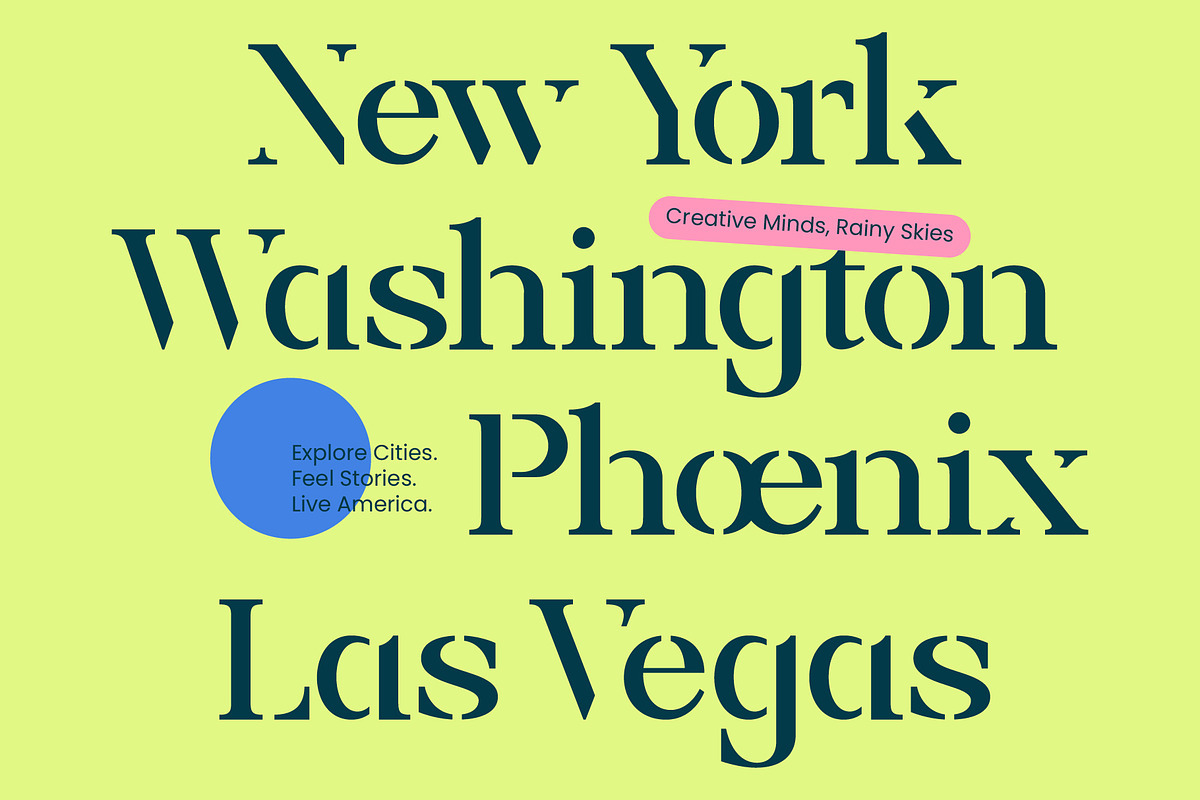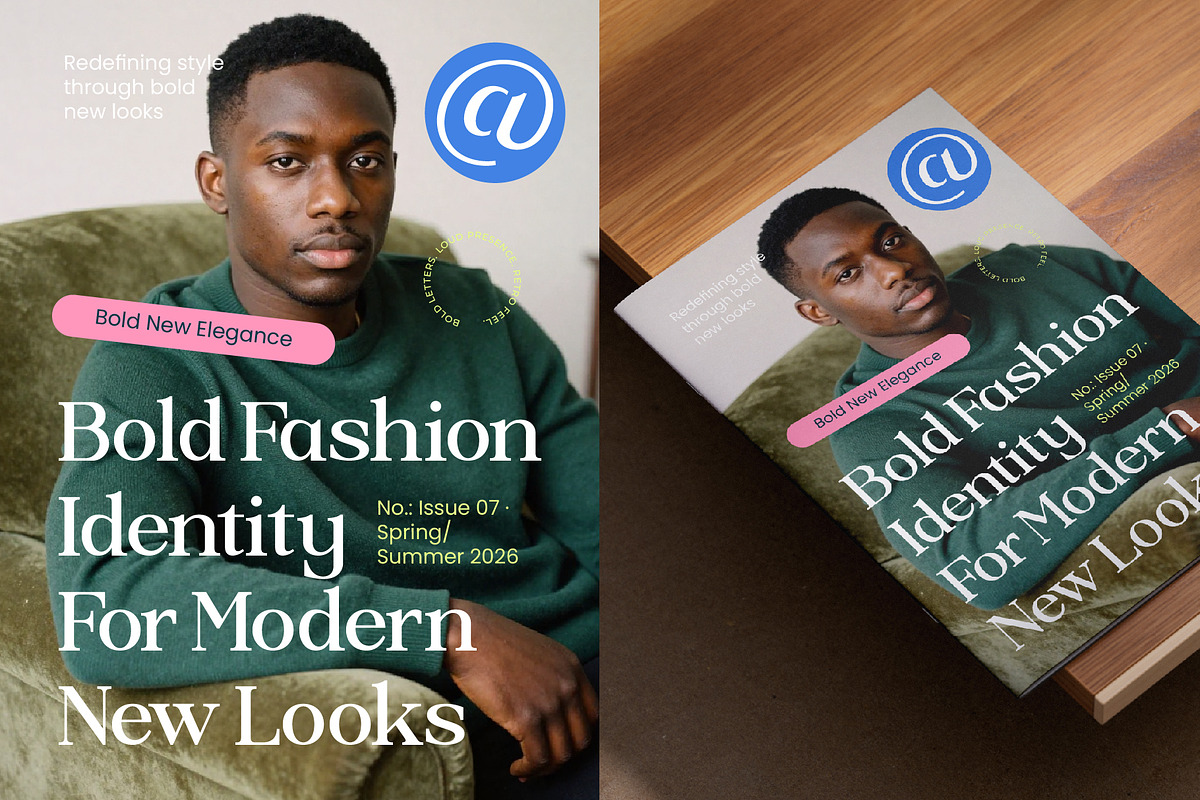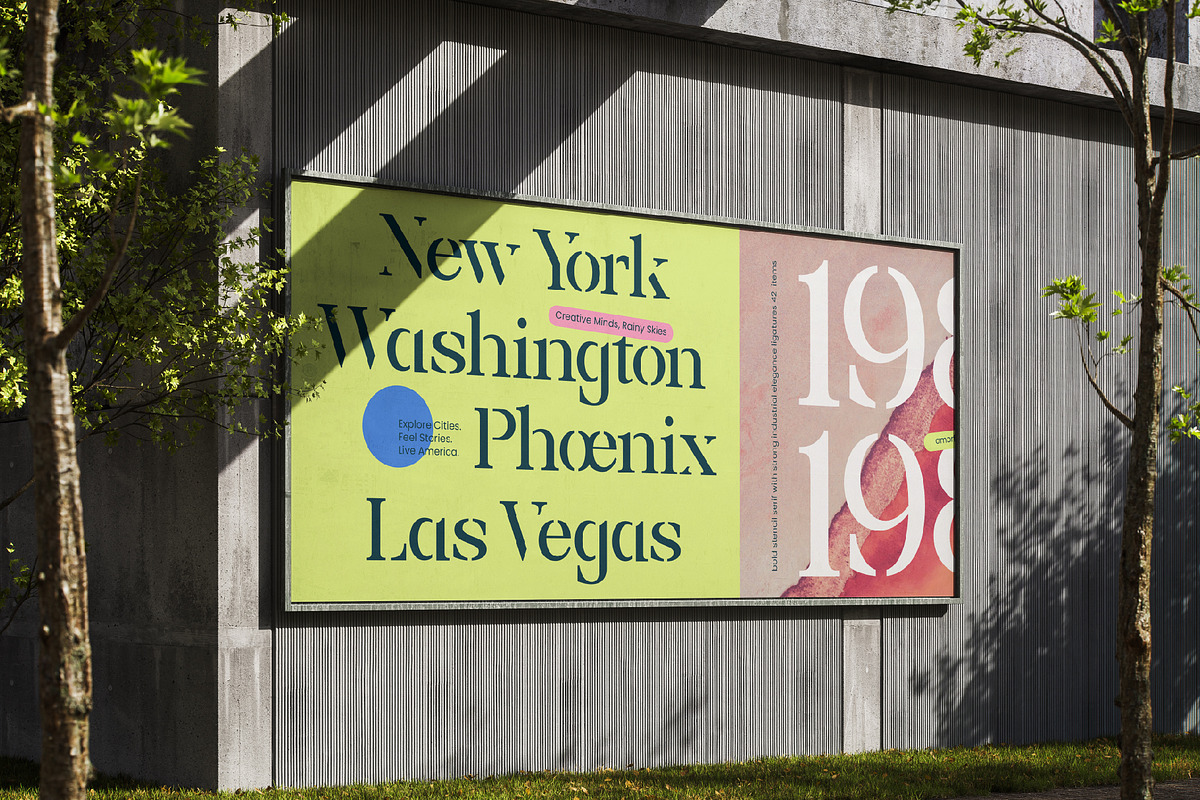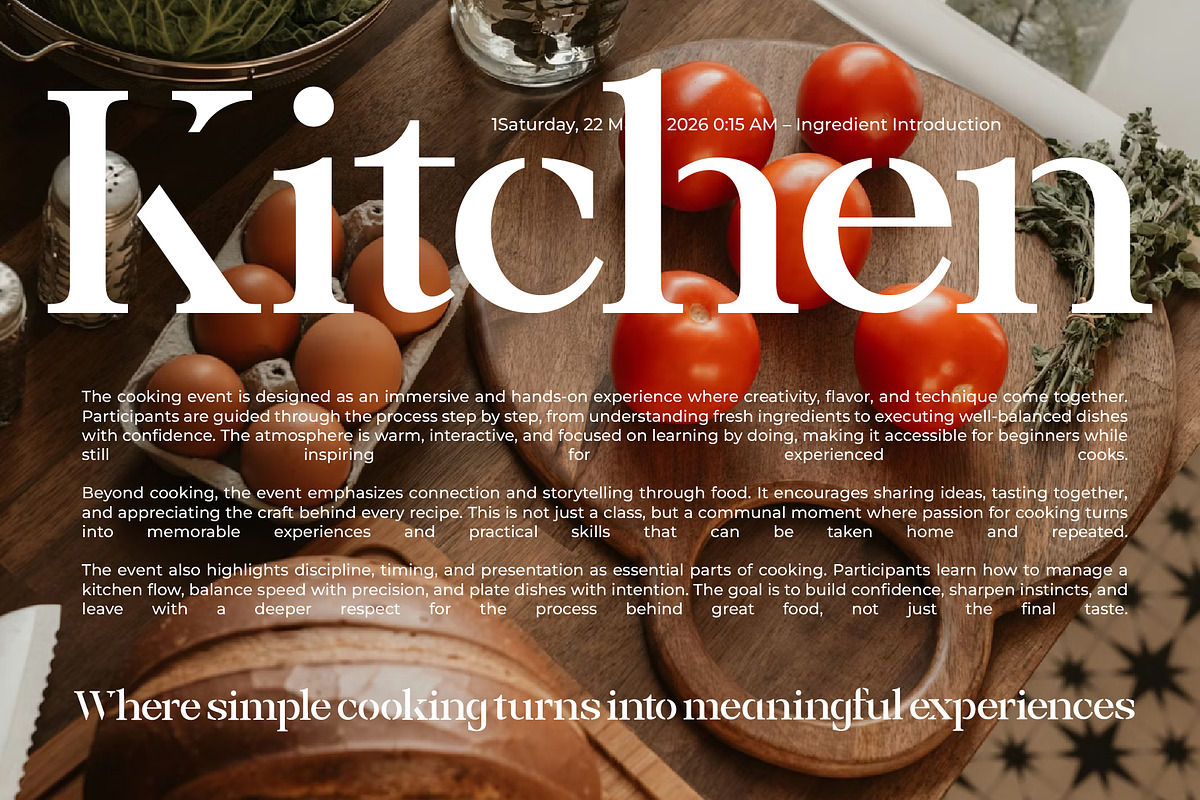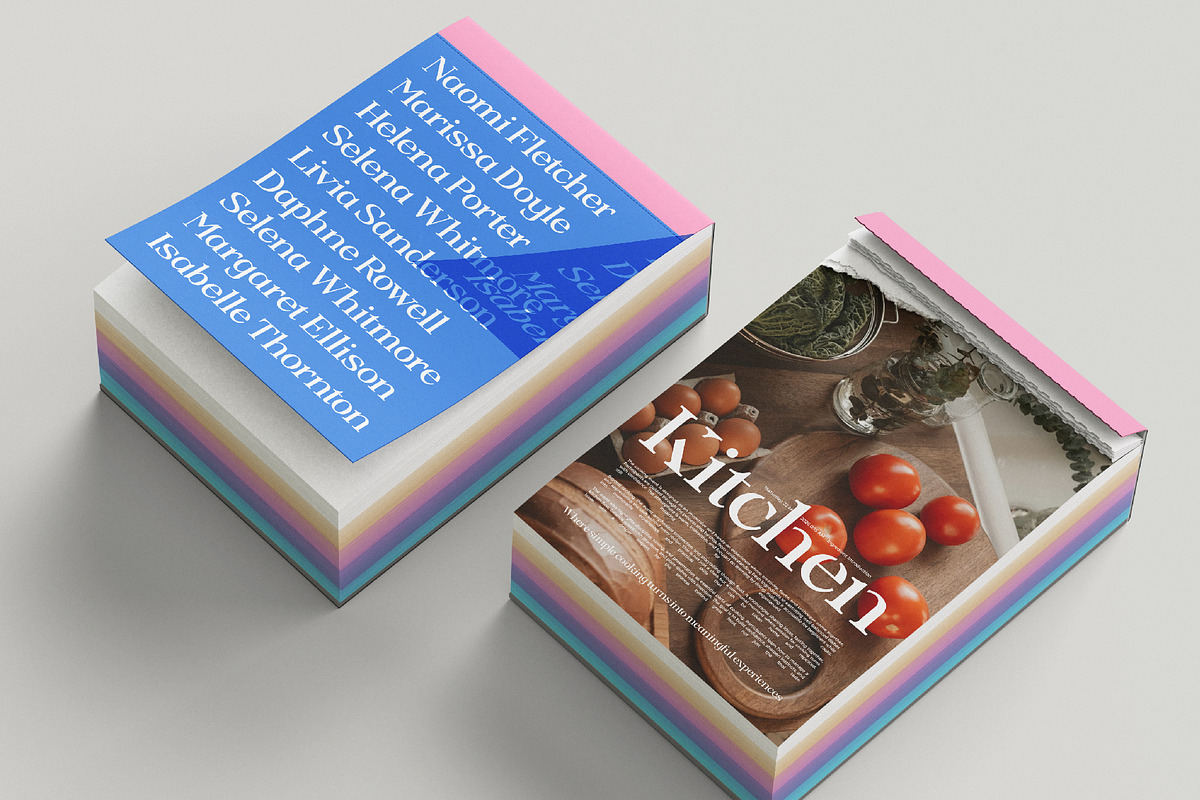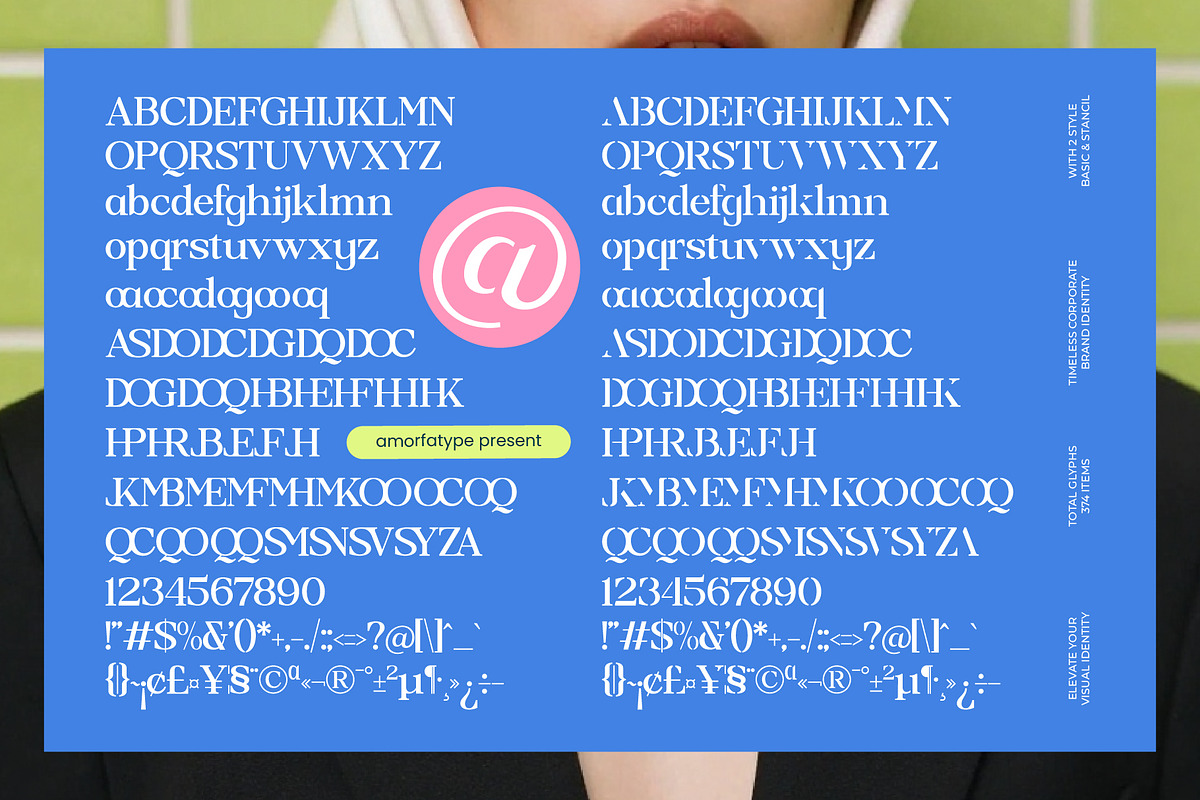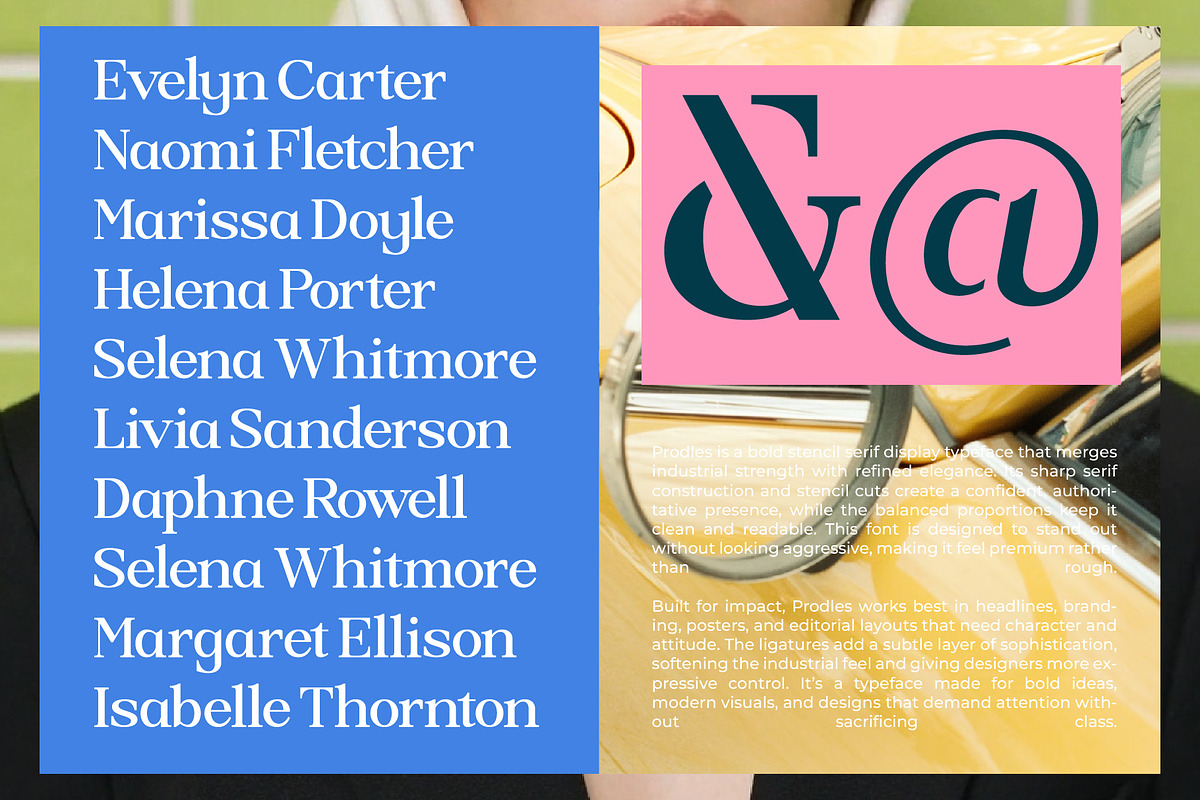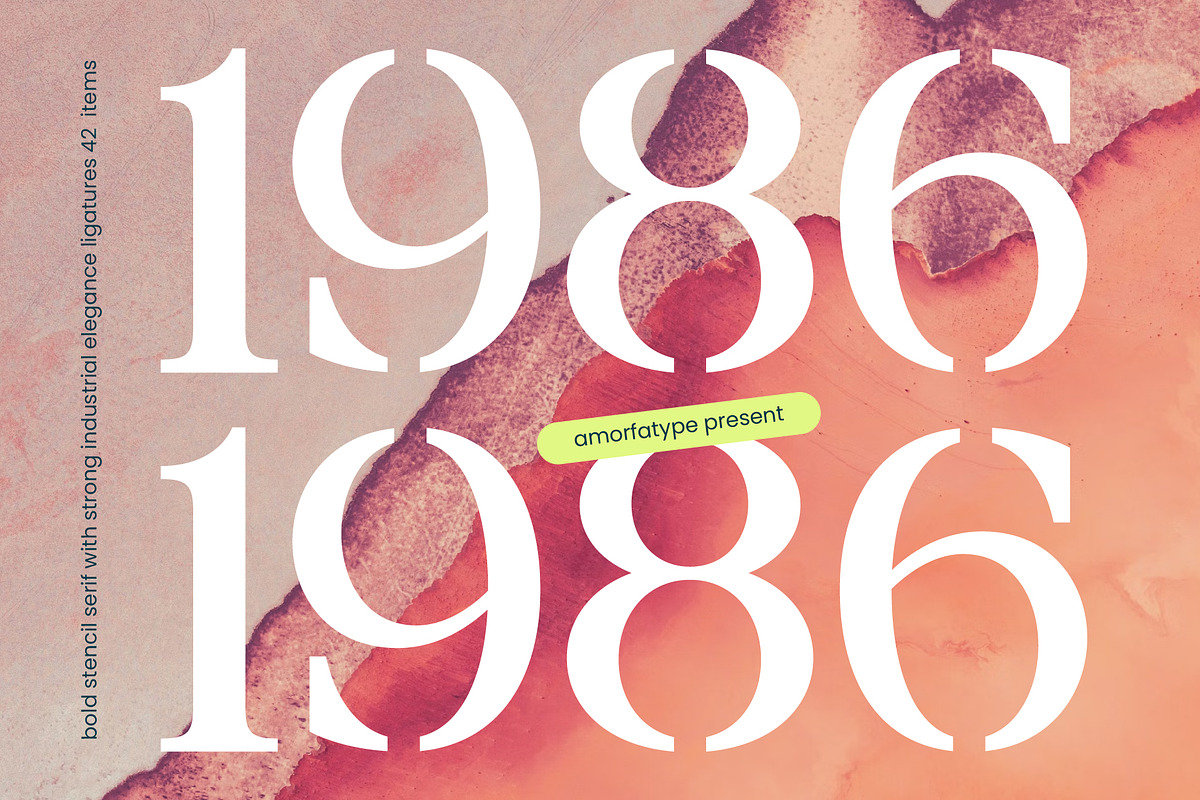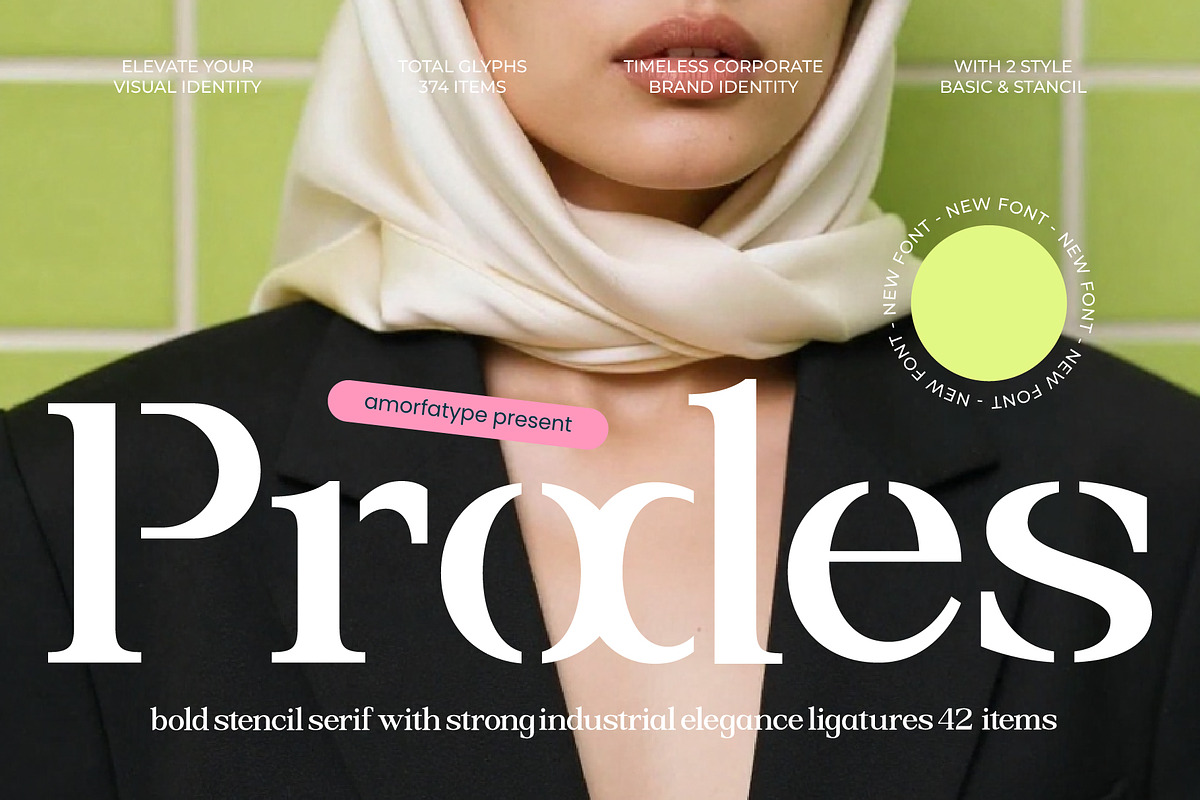
Prodes Bold Stencil Serif
Prodes is a bold stencil serif display font built with strong industrial character, solid construction, and refined elegance. Designed to feel powerful and authoritative, Prodes combines classic serif foundations with sharp stencil cuts, creating a distinctive look that feels both modern and timeless. This font is ideal for branding, posters, editorial headlines, packaging, signage, and designs that demand strength and clarity.
With its bold weight and confident proportions, Prodes delivers high visual impact while remaining structured and readable. The stencil details add a technical, industrial edge, making it especially suitable for industrial branding, modern fashion visuals, architectural themes, street-inspired graphics, and bold contemporary layouts.
Bold Stencil Display & Impact-Driven – Perfect for logos, headlines, posters, and statement typography Industrial Elegance – Sharp stencil cuts balanced with refined serif forms Strong Serif Structure – Heavy strokes and clear letterforms for confident visual presence Optimized for Print & Digital – Maintains strength, contrast, and legibility across all media
Prodes is crafted for designers who need a bold stencil serif font with industrial elegance—strong, structured, and unapologetically impactful for modern visual storytelling.